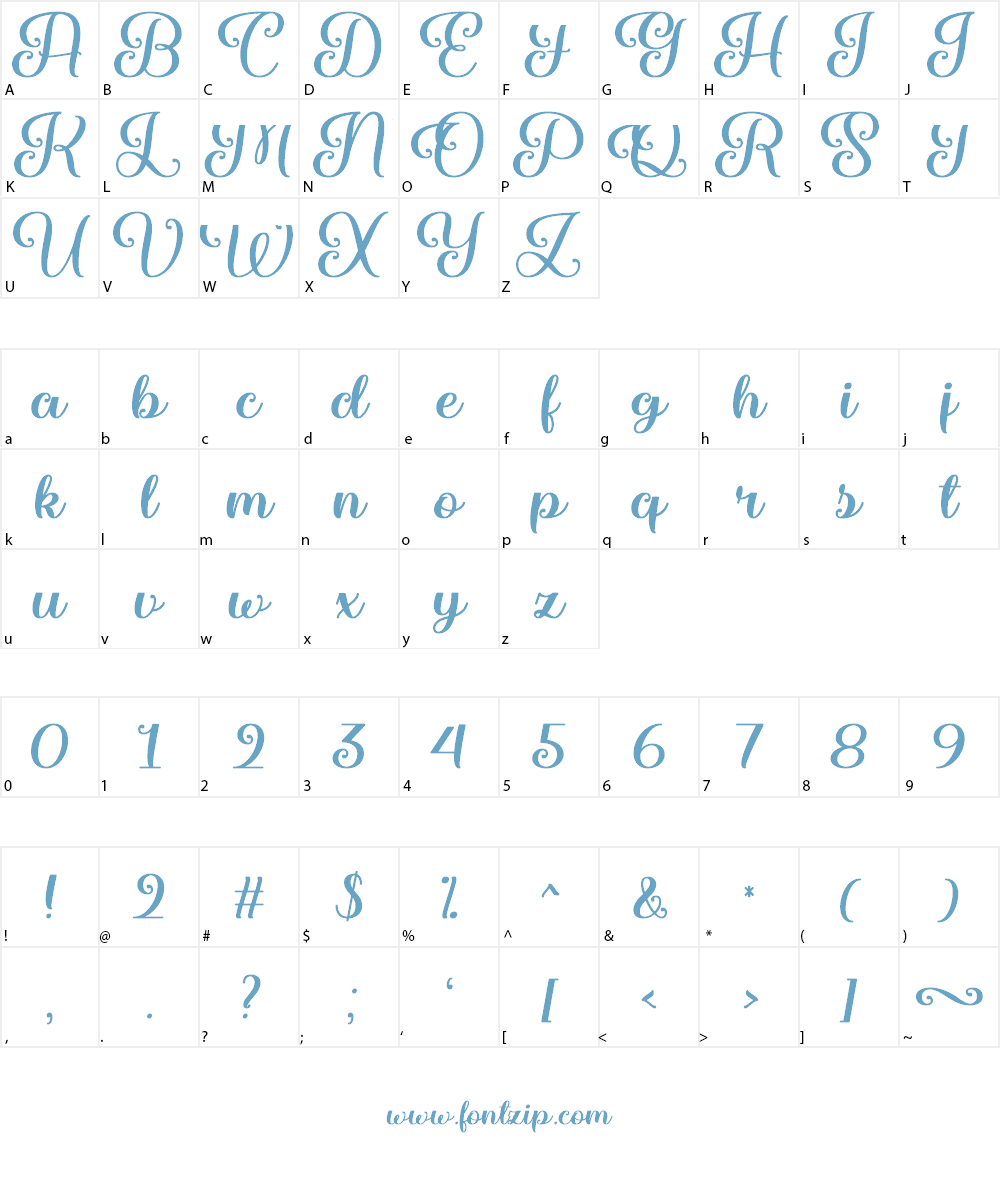
Marienkäfer means Ladybug in German
SPECIAL SYMBOLS
Type ~ (tilde) for the decorative swash
Type {} (curly braces) for the lowercase beginning and ending swashes
Marienkäfer means Ladybug in German
SPECIAL SYMBOLS
Type ~ (tilde) for the decorative swash
Type {} (curly braces) for the lowercase beginning and ending swashes